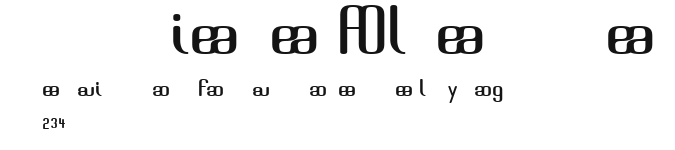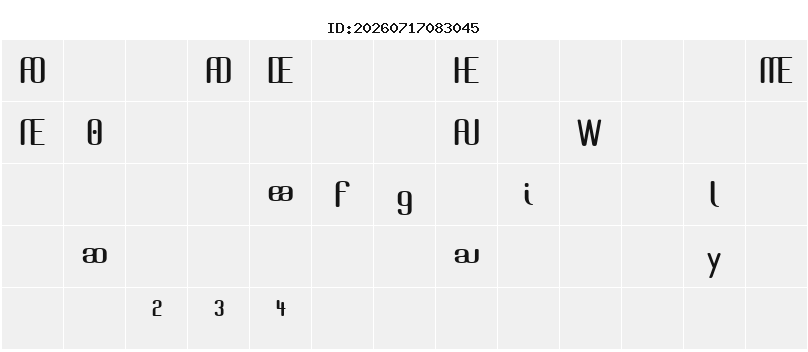
Brassiere Alternates Preview
• Font Name: Brassiere Alternates
• Full Font Name: Brassiere Alternates
• PostScript Name: BrassiereAlternates
• Designer: Graham Meade
About Brassiere Alternates.ttf
Brassiere Alternates.ttf is a modern, elegant sans-serif font designed for ultimate readability and visual harmony. Perfect for branding, headlines, web design, and print materials.